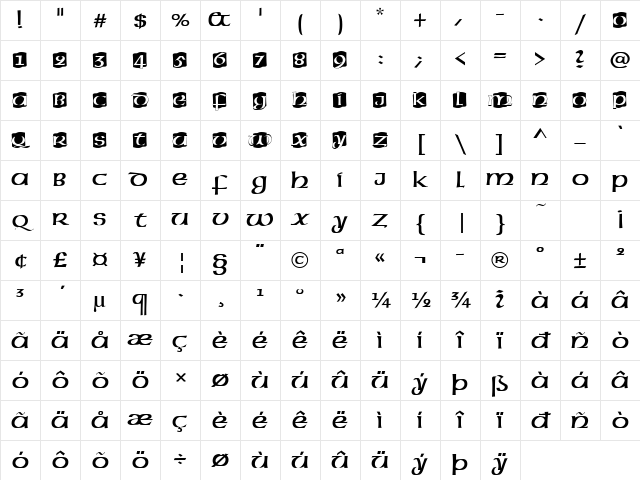
AmericanUncIniD Regular
Design Context for AmericanUncIniD
AmericanUncIniD is a composed and adaptable typeface that performs quietly and consistently across a wide range of design contexts.